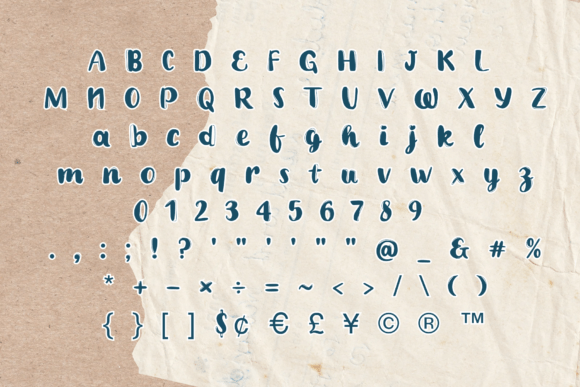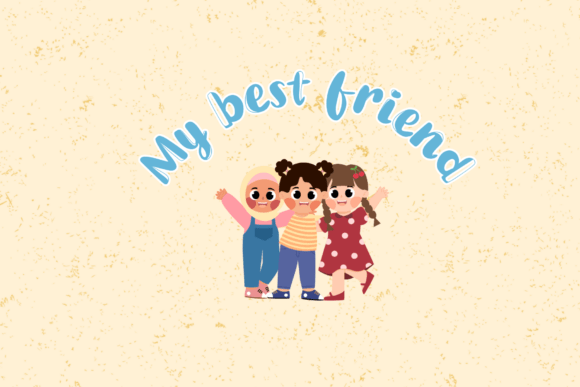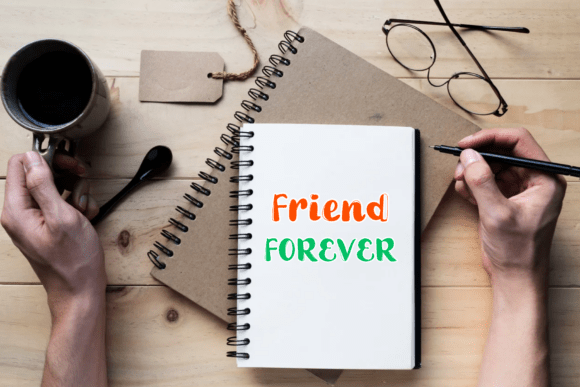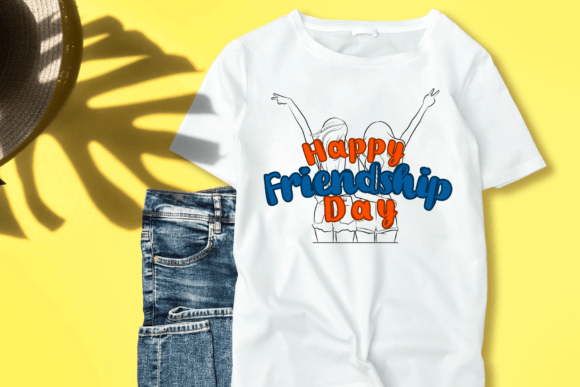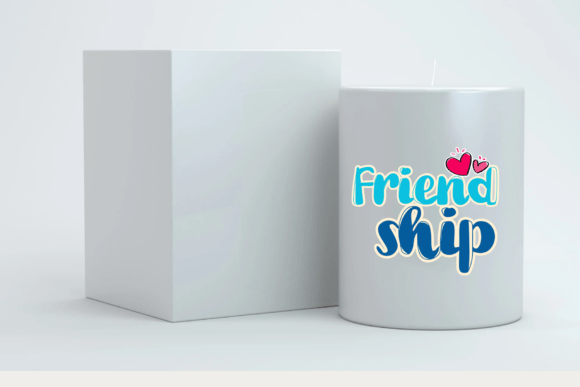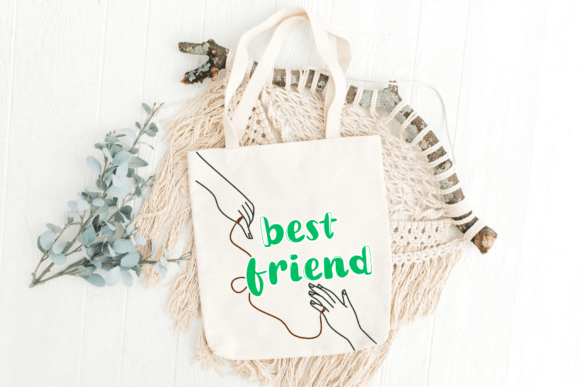
The Friendship Font: A Cute Handwritten Delight for Your Creative Projects
I’ll never forget the time I was working on a branding project for a client’s bakery, and I just couldn’t find the right font to capture the warm, friendly vibe they wanted. The client had a clear vision of a playful, handwritten style that would make their customers feel like they’re walking into a cozy friend’s kitchen. That’s when I stumbled upon the Friendship Font, and it was love at first sight! ✨
What I Love About Friendship Font
- ✨ It’s incredibly cute and adds a touch of warmth to any design project
- ✅ The handwritten style is fluid and natural-looking, making it perfect for creative and crafty projects
- 🎉 It’s surprisingly versatile and works well for both digital and print designs
While I adore the Friendship Font, there are a few things to keep in mind: 🤔
- ⚠️ It can be a bit tricky to read at very small sizes, so it’s best used for headlines or larger text
- ⚠️ Some of the letters have slightly irregular spacing, which might require manual kerning for optimal results
Exploring OpenType Features: Glyphs and Stylistic Alternates
One of the best things about the Friendship Font is its support for OpenType features. This means you can access a range of glyphs and stylistic alternates to add more variety and personality to your text. For example, you can use:
- Swashes and flourishes to add a touch of elegance
- Alternate letters to create a more customized look
- Glyphs to add icons and other graphical elements to your text
The Friendship Font was designed with the intention of capturing the warmth and playfulness of handwritten communication. The designer wanted to create a font that would make digital text feel more personal and approachable. With its cute, irregular letters and fluid strokes, Friendship Font is perfect for designers, crafters, and creative hobbyists who want to add a touch of personality to their projects.
| Font Name | Friendship Font |
| Author | Helio Bloom |
Q: What type of projects is Friendship Font best suited for?
A: Friendship Font is perfect for creative projects like branding, packaging, and social media graphics. It’s also great for crafty projects like handmade cards and invitations.
Q: Is Friendship Font available in different weights or styles?
A: Currently, Friendship Font is available in a single weight. However, the designer may release additional weights or styles in the future.